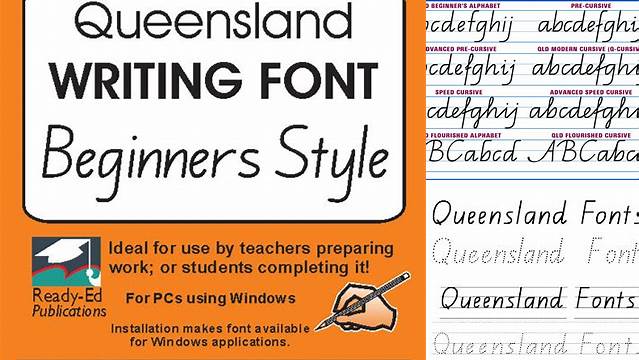
Introduction to Queensland Beginners Font
Hey guys! Ever wondered about that super neat and legible font they use in Queensland schools for early learners? That’s the Queensland Beginners Font, and it’s a game-changer for kids just starting their reading and writing journey. This font is designed with simplicity and clarity in mind, making it easier for young eyes to decode letters and form words. We're going to dive deep into what makes this font so special, how you can get your hands on it for free, and how it can benefit your little ones or your classroom. So, whether you're a parent, teacher, or just a font enthusiast, stick around! This is going to be an exciting exploration of the wonderful world of the Queensland Beginners Font. Think of it as your ultimate guide to understanding and utilizing this fantastic educational tool. We’ll cover everything from its core design principles to its practical applications, ensuring you have all the information you need. And remember, making learning fun and accessible is what it’s all about!
Understanding the Design Principles of Queensland Beginners Font
So, what makes the Queensland Beginners Font so unique? It's all in the design, guys! This font is meticulously crafted with young learners in mind, focusing on simplicity, clarity, and consistency. One of the key principles is its clear letterforms. Each letter is designed to be easily distinguishable from the others, reducing confusion for kids who are just starting to recognize the alphabet. The font also uses consistent stroke weights, meaning the thickness of the lines in each letter is uniform, making them visually balanced and less cluttered. Another crucial element is the ample spacing between letters and words. This extra space helps prevent letters from merging together, which can be a common issue with some fonts, especially for children with dyslexia or other learning difficulties. The designers also paid close attention to the lowercase letters, ensuring they closely resemble the handwritten forms that children are taught in schools. This alignment between print and handwriting is vital for reinforcing letter recognition and formation skills. In essence, the Queensland Beginners Font isn’t just a pretty typeface; it’s a carefully thought-out tool designed to support early literacy development. It’s a fantastic example of how design can make a real difference in education.
How Queensland Beginners Font Aids Early Literacy
Now, let's talk about the real magic – how the Queensland Beginners Font actually helps kids learn to read and write. You see, when children are first introduced to letters, they're essentially learning a whole new code. Anything that can simplify that process is a massive win. This font does precisely that by presenting letters in their most straightforward, recognizable forms. Think about it: confusing or overly stylized fonts can make it harder for children to differentiate between letters, leading to frustration and slower progress. But with the Queensland Beginners Font, the clarity of each letter helps kids quickly grasp the basic shapes and sounds. This font’s consistency also plays a huge role. By presenting letters in a uniform and predictable way, it reinforces correct letter formation and reduces the likelihood of reversals (like confusing 'b' and 'd'). Furthermore, the font's close resemblance to handwriting makes the transition from reading printed text to writing by hand much smoother. This is especially important in the early years when handwriting skills are being developed. In short, the Queensland Beginners Font acts as a scaffolding tool, providing young learners with the support they need to build a strong foundation in literacy. It’s like giving them a clear roadmap to navigate the world of reading and writing. And that’s pretty awesome!
Using Queensland Beginners Font in the Classroom
So, you're an educator, and you're thinking about bringing the Queensland Beginners Font into your classroom? Excellent choice! This font can be a total game-changer for your students. Let’s dive into some practical ways you can use it effectively. First off, consider using it for all your classroom materials – worksheets, posters, labels, and even your whiteboard presentations. Consistency is key, so having a uniform font across the board can help reinforce letter recognition. When creating worksheets, use the font in a variety of sizes to accommodate different activities. For example, larger fonts are great for tracing and letter recognition exercises, while smaller fonts can be used for reading passages and writing prompts. Another fantastic idea is to create alphabet charts and flashcards using the font. These visual aids can be incredibly helpful for students who are just learning their letters. You can also use the font to create interactive activities, such as word searches, crosswords, and fill-in-the-blank exercises. These fun games can make learning engaging and enjoyable for your students. Don't forget to model the correct letter formation using the font as a guide. This helps students connect the printed form with the handwritten form, reinforcing their understanding of letter shapes. By integrating the Queensland Beginners Font into your classroom, you're creating a literacy-rich environment that supports your students' learning journey every step of the way.
How Parents Can Use Queensland Beginners Font at Home
Parents, you too can leverage the power of the Queensland Beginners Font to support your child's literacy development at home! It’s all about creating a fun and engaging learning environment. One simple way to use the font is to label items around the house. This helps your child connect words with objects in their everyday life. Think labels on drawers, cupboards, and even toys. You can also use the font to create flashcards or small books with simple words and pictures. These are fantastic for practicing letter recognition and building vocabulary. Reading together is another excellent way to incorporate the font. Print out stories or create your own using the Queensland Beginners Font, making it easier for your child to follow along. Writing practice is also crucial. Encourage your child to write letters, words, or even short sentences using the font as a guide. You can provide worksheets or simply have them practice on lined paper. Make it fun by incorporating games and activities. For example, you could play a letter-matching game or create a word search puzzle. Remember, the key is to make learning enjoyable and stress-free. By using the Queensland Beginners Font at home, you're reinforcing what your child learns in school and helping them build a strong foundation in literacy. It’s a fantastic way to be an active participant in their learning journey.
The Benefits of Using a Beginner-Friendly Font
Let's break down why using a beginner-friendly font like the Queensland Beginners Font is so beneficial for young learners. The most significant advantage is clarity. These fonts are designed to be easy to read, with clear letterforms and ample spacing. This reduces visual clutter and helps children focus on recognizing the letters themselves, rather than getting distracted by fancy flourishes or confusing shapes. Another key benefit is consistency. Beginner-friendly fonts typically use consistent stroke weights and letter formations, making it easier for children to learn and remember the alphabet. This consistency also helps prevent letter reversals, a common issue for children in the early stages of literacy development. Beginner fonts often closely resemble handwriting, which is crucial for bridging the gap between reading and writing. When children see letters that look like the ones they are learning to write, it reinforces their understanding of letter shapes and formations. Using a beginner-friendly font can also boost a child's confidence. When text is easier to read, children are more likely to engage with it and feel successful, which in turn motivates them to learn more. In short, using a font like the Queensland Beginners Font is about setting children up for success. It’s about removing potential barriers to learning and creating a positive and supportive environment for literacy development.
Common Mistakes to Avoid When Using Beginner Fonts
Okay, so you're on board with using the Queensland Beginners Font, that’s awesome! But let's chat about some common pitfalls to avoid so you can make the most of it. One big mistake is mixing fonts. Sticking to the Queensland Beginners Font consistently across all your materials is crucial. If you start throwing in other fonts, it can confuse young learners and defeat the purpose of using a beginner-friendly font in the first place. Another common error is using font sizes that are too small. Remember, these fonts are designed for easy reading, but if the text is tiny, it can still be a strain on young eyes. Make sure to use font sizes that are large enough for children to see clearly, especially in the early stages of learning. Overusing bold or italics is another thing to watch out for. While these formatting options can be helpful for emphasis, too much of them can make the text look cluttered and harder to read. Use them sparingly and strategically. It’s also important to ensure that the font is being used in a context that supports learning. Simply using the font isn't enough; you need to create activities and materials that are engaging and appropriate for the children's skill level. Finally, don’t forget that the font is just one tool in your literacy toolkit. It’s essential to complement it with other effective teaching strategies and resources. By avoiding these common mistakes, you can ensure that you’re using the Queensland Beginners Font in the most effective way possible to support your child’s or students' literacy development.
Comparing Queensland Beginners Font with Other Beginner Fonts
So, the Queensland Beginners Font is pretty great, but how does it stack up against other beginner fonts out there? Let's take a look! There are several popular beginner fonts, each with its own strengths and weaknesses. One common comparison is with other state-specific beginner fonts, such as those used in New South Wales or Victoria. These fonts share similar design principles, focusing on clarity and simplicity, but they may have subtle differences in letter formations. For example, the way the lowercase 'a' or 'g' is formed can vary slightly. Another comparison point is with commercially available beginner fonts. These fonts often come with additional features, such as different weights and styles, but they may also be more expensive than free options like the Queensland Beginners Font. When comparing fonts, consider the specific needs of your learners. Some children may benefit from a font with particularly wide spacing, while others may find a font with more rounded letterforms easier to read. It’s also important to think about the overall aesthetic. While clarity is key, you also want a font that is visually appealing and engaging for children. Ultimately, the best beginner font is the one that works best for your individual learners or child. It’s worth exploring different options and experimenting to see which font provides the most support and promotes the most successful learning outcomes.
Frequently Asked Questions About Queensland Beginners Font
Got some burning questions about the Queensland Beginners Font? Let's tackle some frequently asked questions to clear up any lingering doubts! What is the Queensland Beginners Font? It's a typeface designed specifically for early literacy, focusing on clarity, simplicity, and resemblance to handwriting. It's widely used in Queensland schools and beyond to support young learners. Where can I download the Queensland Beginners Font for free? You can often find free downloads on educational websites, font repositories, and sometimes even the Queensland Department of Education website. Always check the licensing terms before using the font. Is the Queensland Beginners Font good for students with dyslexia? Yes! Its clear letterforms and consistent spacing can be very helpful for dyslexic learners, making text easier to read. Can I use the Queensland Beginners Font for commercial purposes? It depends on the licensing terms. Generally, it's free for personal and educational use, but commercial use may require permission or licensing fees. What font size should I use with the Queensland Beginners Font? For young learners, a font size of 14 points or higher is generally recommended for optimal readability. How does the Queensland Beginners Font compare to other beginner fonts? It's similar to other beginner fonts in its focus on clarity and simplicity, but it has its own unique letter formations and style. Can I use the Queensland Beginners Font for online learning? Absolutely! It's a great choice for creating online materials that are easy to read on screens. What are some font pairing tips for the Queensland Beginners Font? Pair it with a slightly bolder or different style of the same font family for headings, or try a simple sans-serif font for a clean look. Is the Queensland Beginners Font the only font I should use for early literacy? It's a fantastic choice, but it's always good to have options. Experiment with other beginner-friendly fonts to see what works best for your learners. Where can I learn more about typography? There are tons of resources available online, including courses, blogs, and websites dedicated to typography. So, keep exploring and happy fonting!